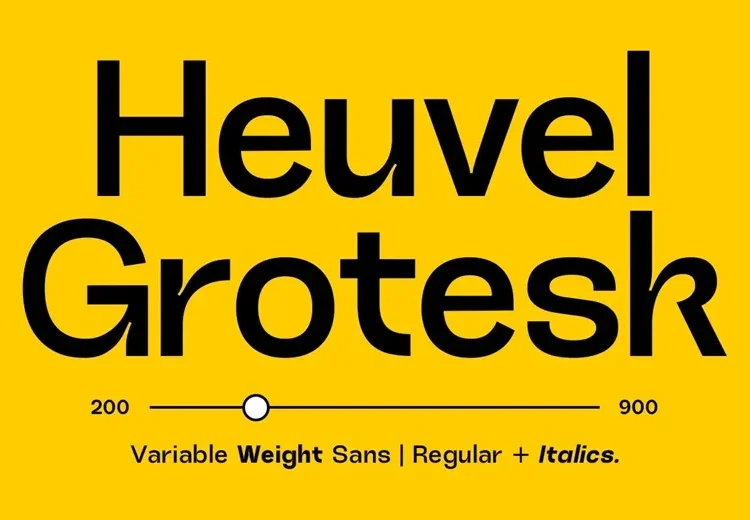
Heuvel Grotesk Font Family
Heuvel Grotesk is a refined sans serif font family, featuring 8 weights with italics and a Variable font file for maximum flexibility. This typeface perfectly marries traditional and contemporary aesthetics, boasting bold, clear inktraps that enhance readability and add a distinctive flair.
Ideal for branding, web projects, titles, and logos, Heuvel Grotesk delivers a clean, professional look while maintaining a modern edge. Its versatility makes it a standout choice for designers aiming to craft impactful, high-quality designs.